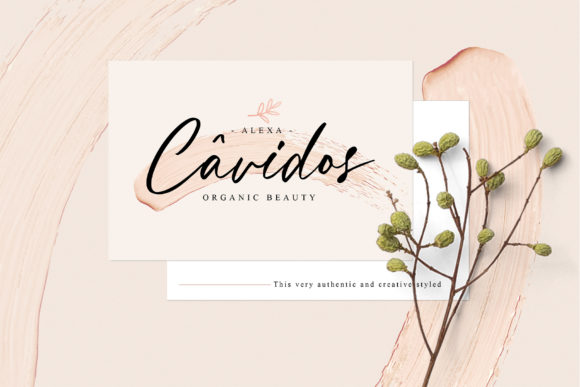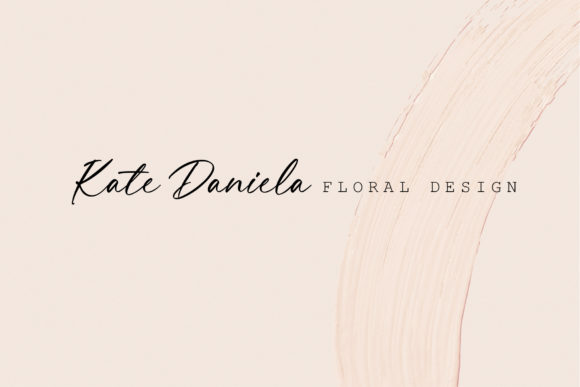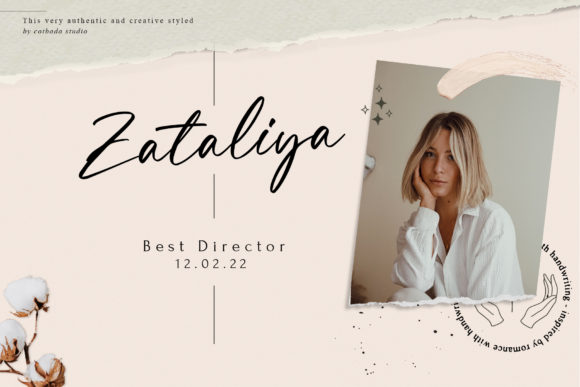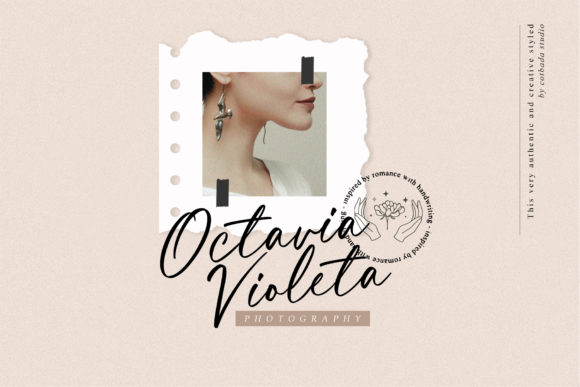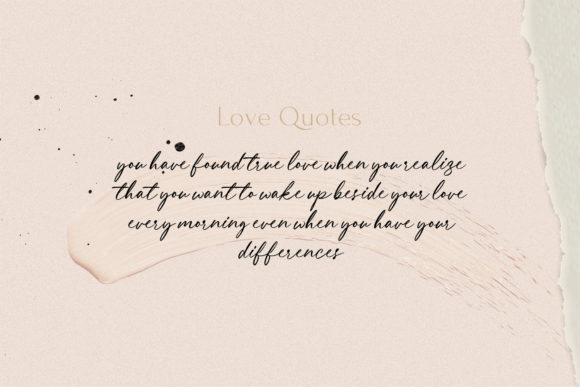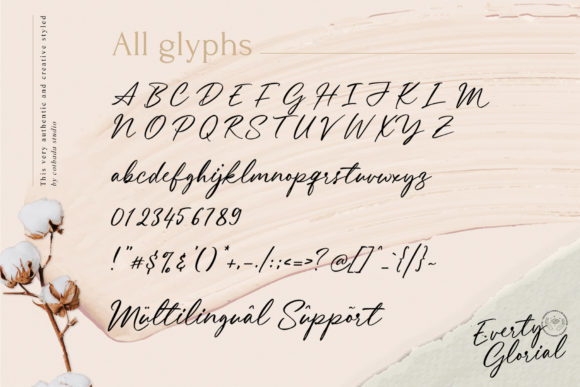
Unleash Your Creativity with Everty Glorial Font Script
There’s something magical about the moment when a design idea clicks into place. The blank canvas transforms into a vibrant world of possibilities, and the words flow effortlessly onto the page. It’s a feeling that’s hard to replicate, but with the right tools, you can get closer to capturing that creative spark. For designers, finding the perfect font can be the difference between a good design and a great one.
Enter Everty Glorial Font Script, a genuine, fresh, and modern handwritten font designed to elevate your creative ideas to new heights. This beautiful script font is perfect for adding a personal touch to your designs, from elegant invitations to bold brand identities. With its masterful design, Everty Glorial Font Script is a valuable addition to any designer’s toolkit, offering endless possibilities for creative expression.
Everty Glorial Font Key Features
- Unique Characteristics: This font features a unique blend of elegance and sophistication, with intricate details and subtle flourishes that set it apart from other font families.
- Kerning and Ligatures: The font includes advanced kerning and ligature pairs, ensuring smooth and visually appealing text rendering.
Everty Glorial Font Review
Overall, I have mixed feelings about the “Everty Glorial Font”. While it has some great features, there are also some limitations that hold it back.
- Unique and elegant design: The font has a beautiful, intricate design that sets it apart from more common fonts.
- High-quality typography: The font is well-made and looks great in a variety of sizes and contexts.
- Wide range of languages supported: The font includes support for a wide range of languages, making it a great choice for multilingual designs.
- Limited character set: While the font includes a wide range of languages, it may not include all the characters you need for certain languages or dialects.
- Not suitable for very large or very small text: The font looks best at medium to large sizes, and may not be as clear or readable at very small or very large sizes.
- No bold or italic styles: While the font includes a range of weights and styles, it does not include bold or italic versions, which may limit its use in certain contexts.
Overall, I would recommend the “Everty Glorial Font” for designs where a unique and elegant font is needed. However, it may not be the best choice for designs that require a wide range of languages or characters, or where bold or italic styles are needed.
Tips for Getting the Most Out of Everty Glorial Font
Here are some tips to help you get the most out of Everty Glorial Font:
- Experiment with different font sizes and colors to achieve the desired visual effect.
- Use Everty Glorial Font in combination with other fonts to create a unique and visually appealing design.
- Take advantage of the font’s versatility and use it in a variety of design contexts.
Alternatives to Everty Glorial Font for Designers
Lato is a modern sans-serif font designed by Łukasz Dziedzic. It’s a great choice for clean and minimalistic designs. Lato is highly legible and suitable for body text, headings, and titles. Compared to Everty Glorial Font, Lato has a more neutral and straightforward feel, making it a popular choice for modern designs.
Is the Everty Glorial Font compatible with screen readers and accessibility tools?
Yes, the Everty Glorial Font is designed to be compatible with screen readers and other accessibility tools. The font includes proper OpenType features, such as ligatures and contextual alternates, which are essential for optimal screen reader performance. This ensures that your content is accessible to users with disabilities and follows web accessibility guidelines.